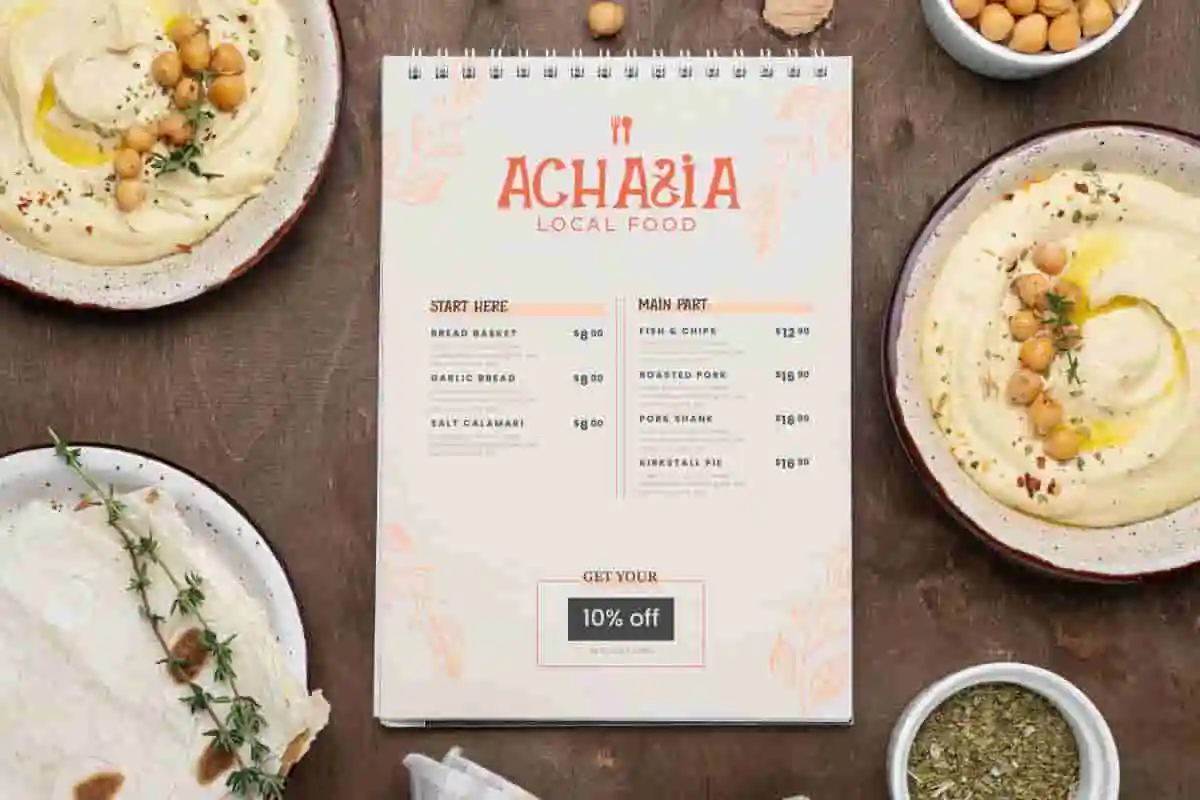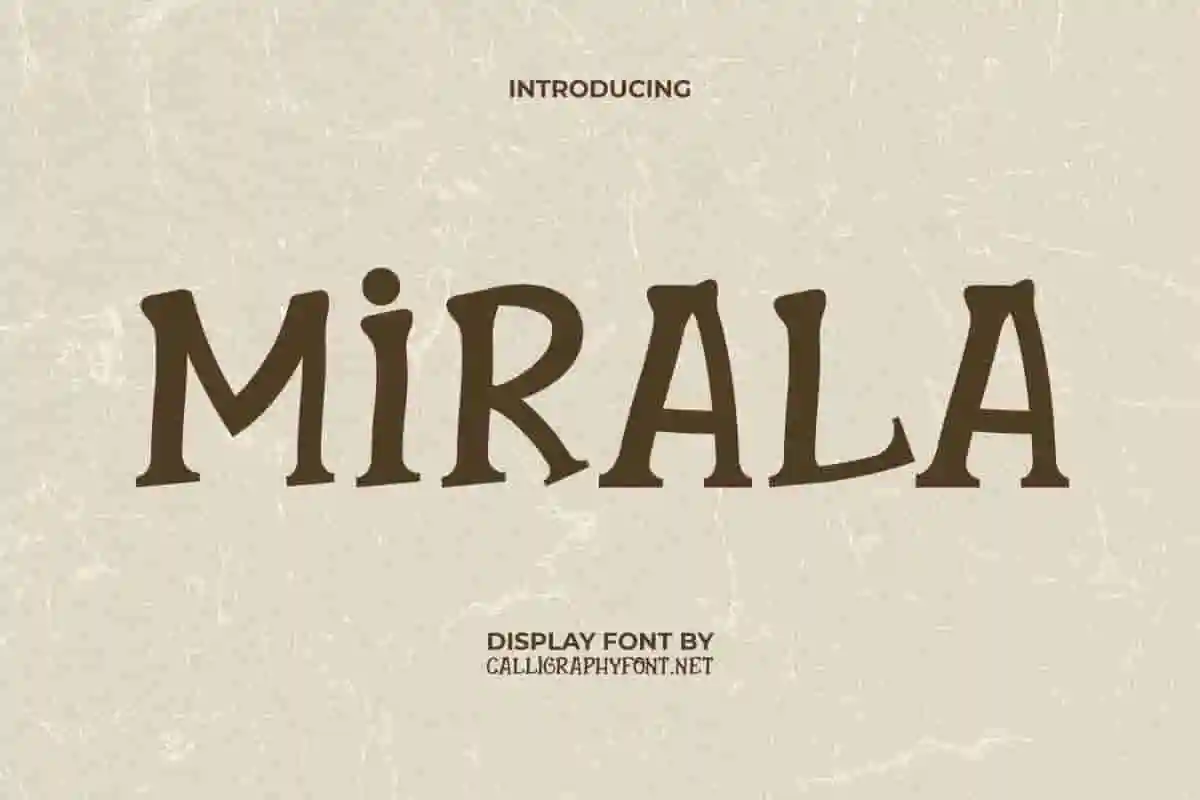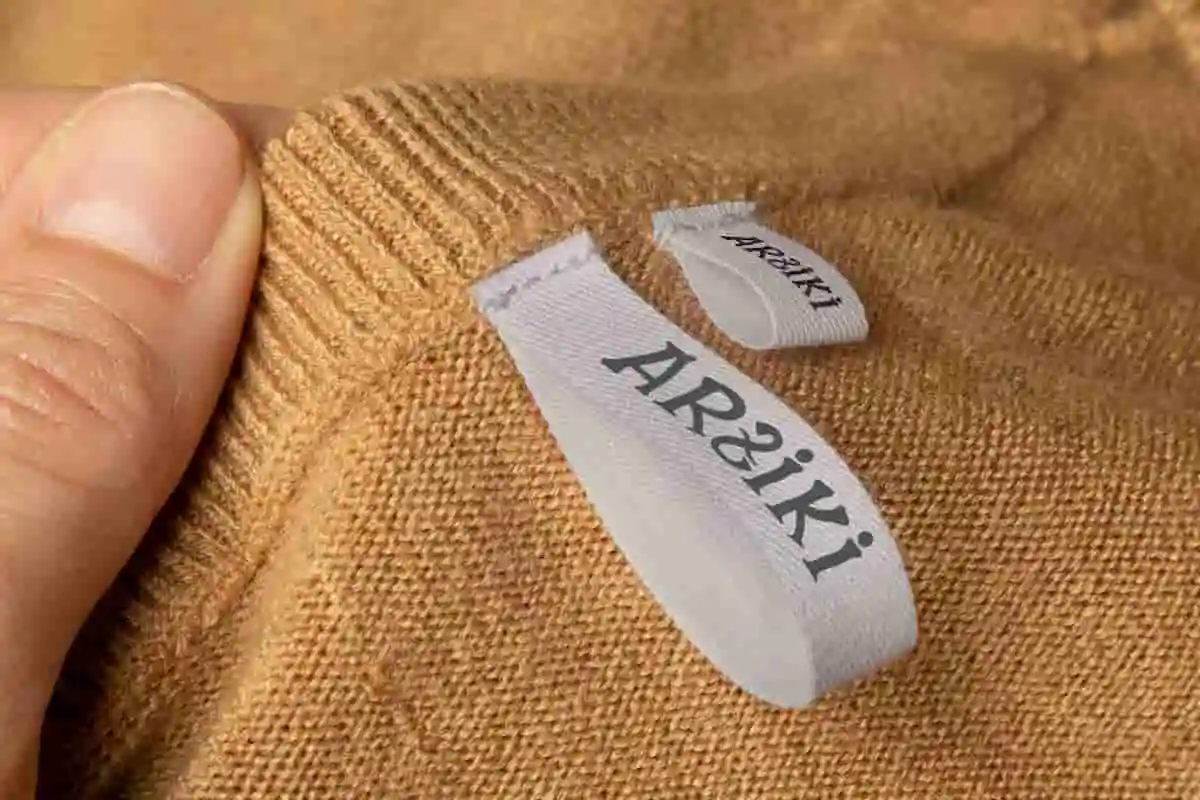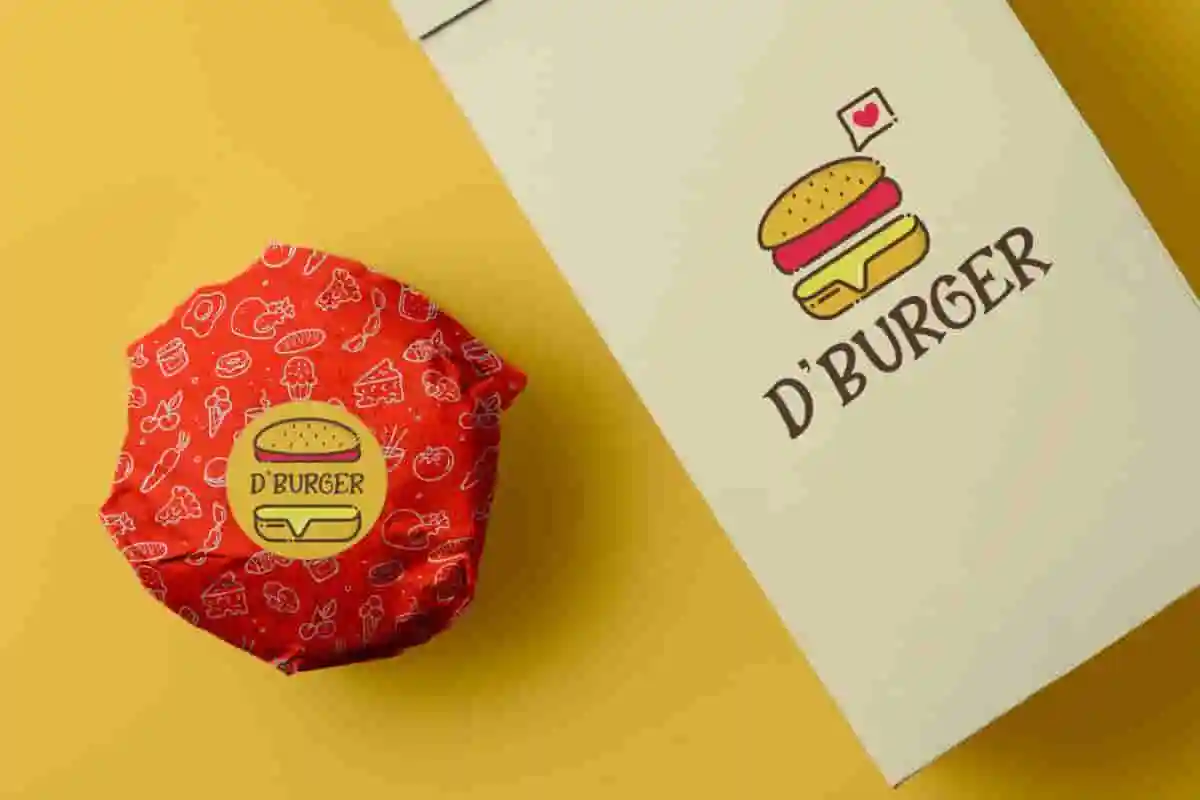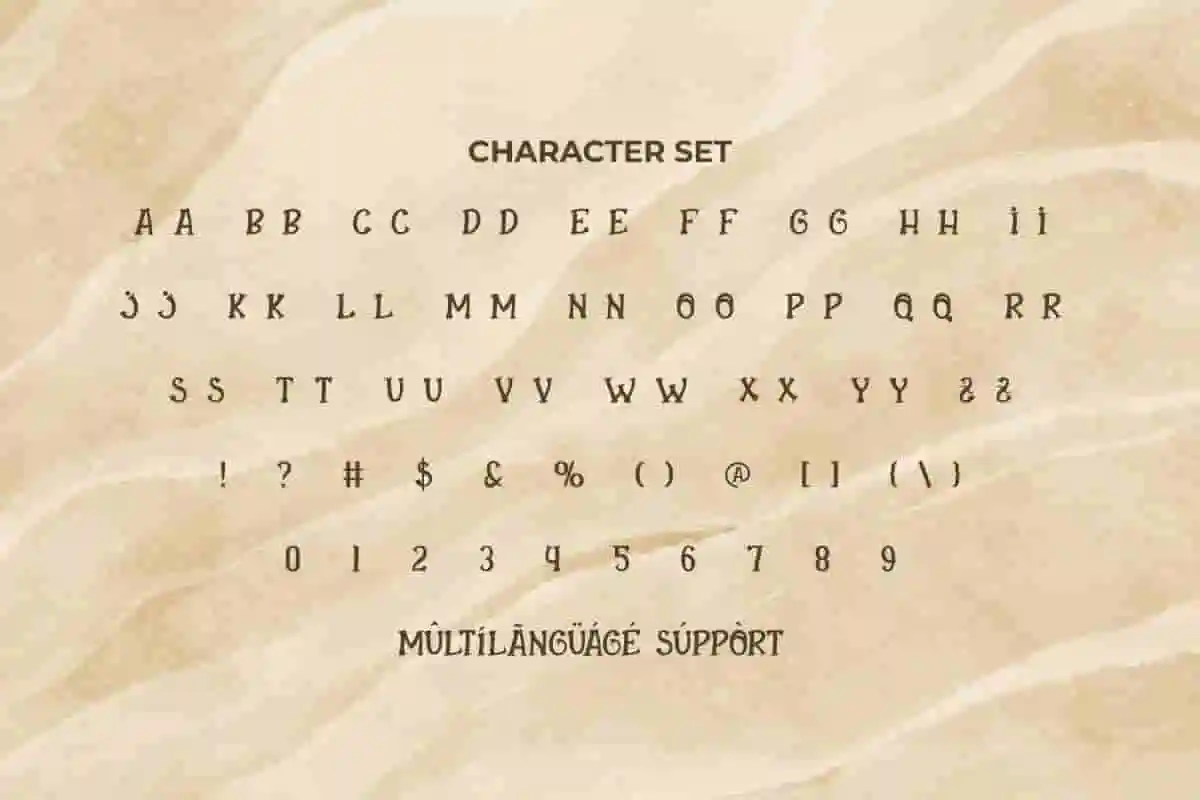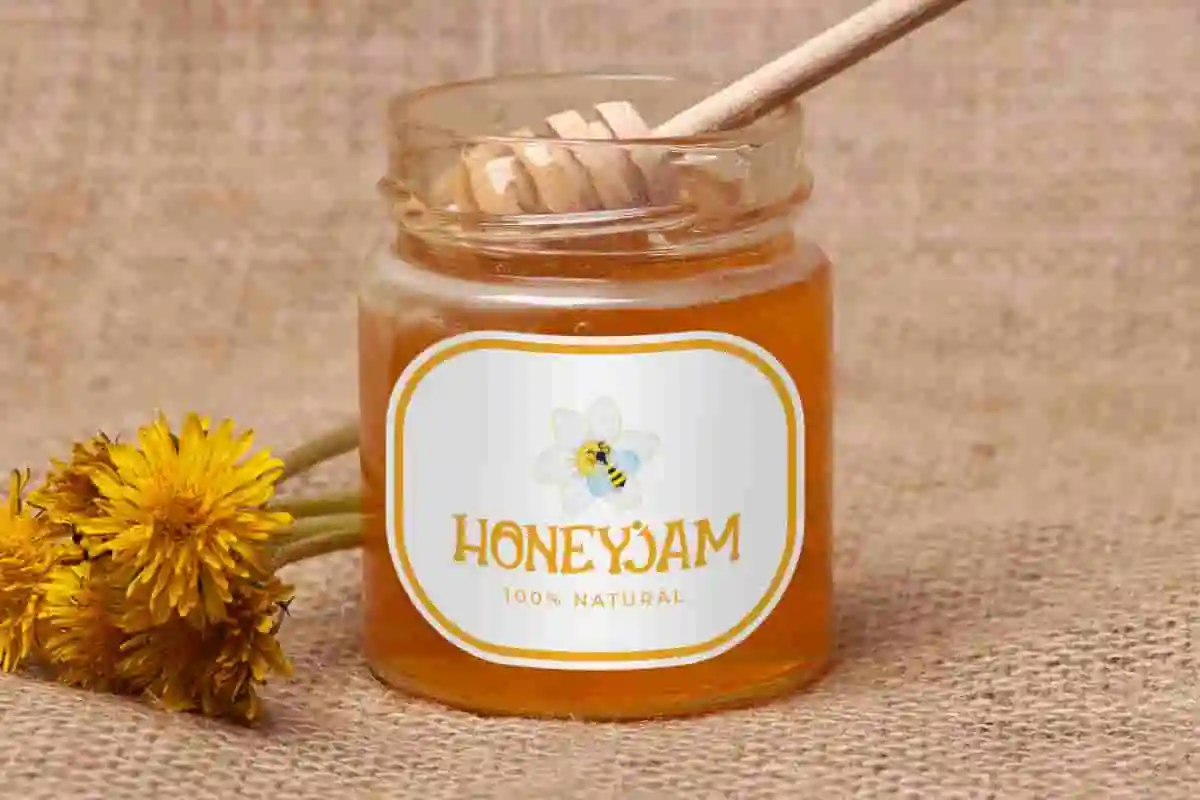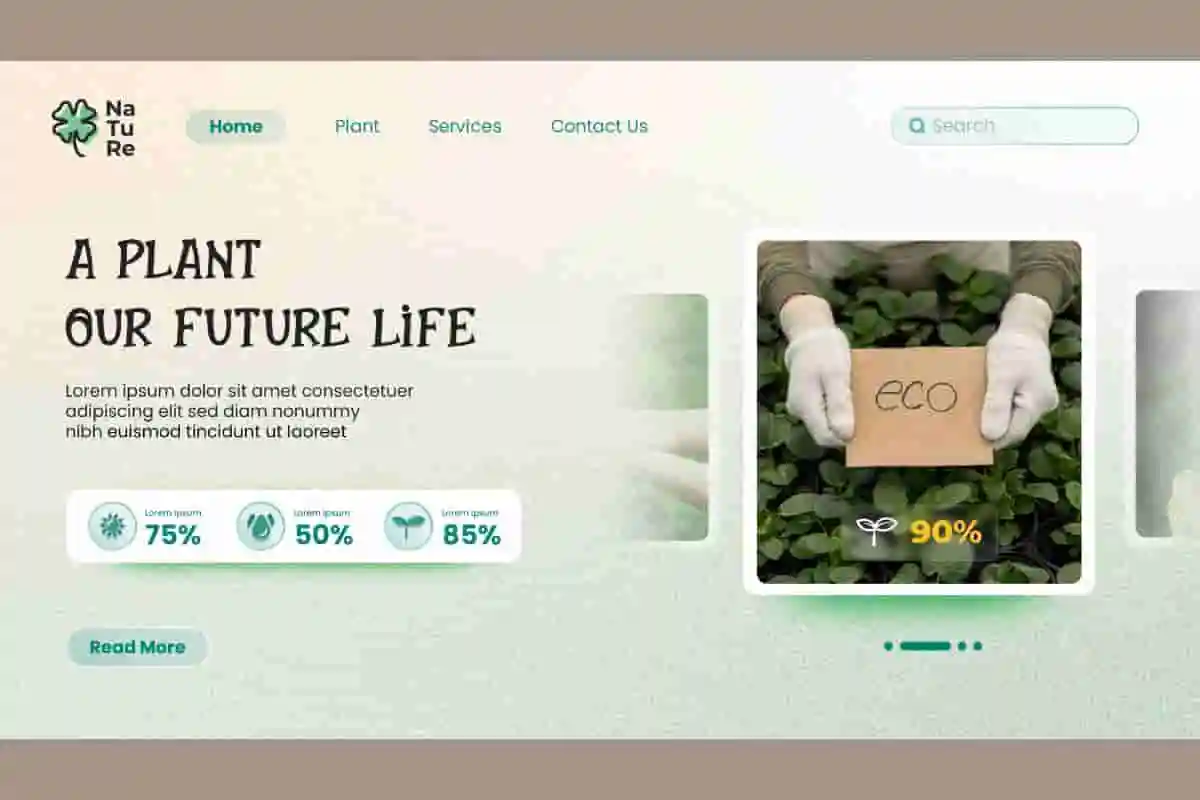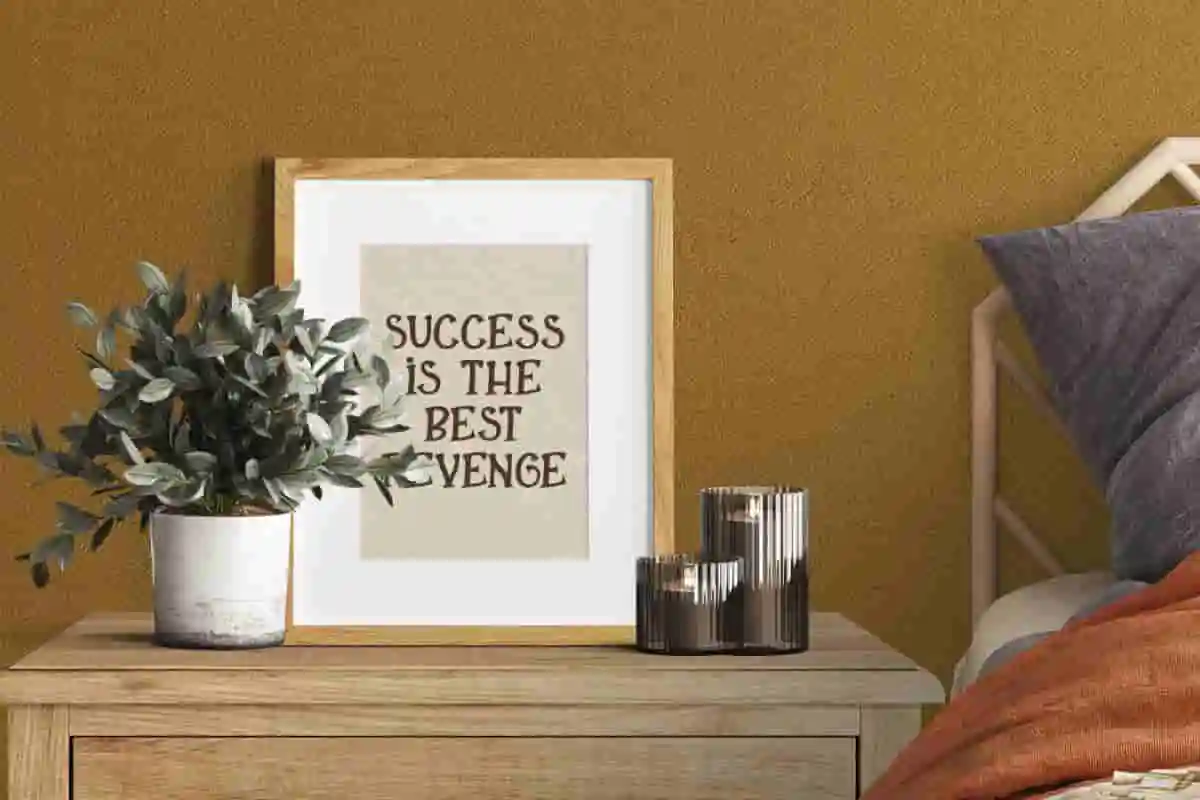
Mirala Retro Fun Font
Mirala Font is a fun creative font display that is timeless. It will work fine for apparel, botany, brochure, child food, fashion designer, flyer, header, home decoration, label, movie, poster, sticker, website, etc.
Mirala Font is a classic playful display font. This is a unique look a bit odd, just look at the shape of the letters which are based on serifs and then made somewhat irregular to create an old impression but still look funny when conditioned on things with pleasant backgrounds. It will suit any industry, such as accessories, advertisement, artist, botany, clothing brand, event or festival, fashion designer, fast food, handicrafts, honey farmer, movie, printing, publishing, restaurant, etc.
Mirala Font is a unique blend when juxtaposed with other typefaces or made to stand out on its own into your creative projects, such as billboard, brand logo, brochure, catalog, cover, header, label, menu pamphlet, mockup design, packaging design, poster, price tag, screen print, signage, stationery, sticker, title, watermark, website, and much more.
Mirala Font comes with a full set of ALL CAPS with slightly different sizes between Uppercase and Lowercase letters, Number, Punctuation and Symbol. This font will be ready to use both on Windows machine or Mac with simple installations. It’s tested to work well in the Adobe Apps (Illustrator, Adobe InDesign, Adobe Photoshop) CorelDraw, and others. PUA Encode Characters means you can access all characters easily – Fully accessible without additional design software.